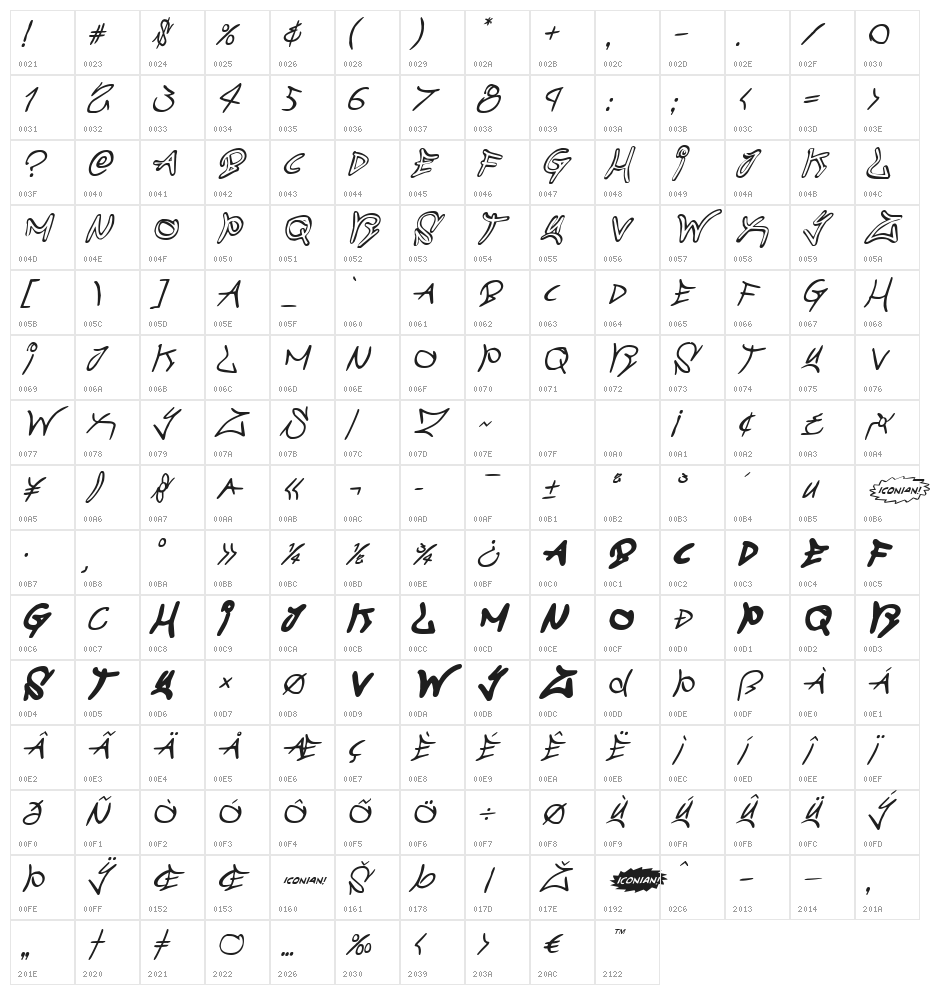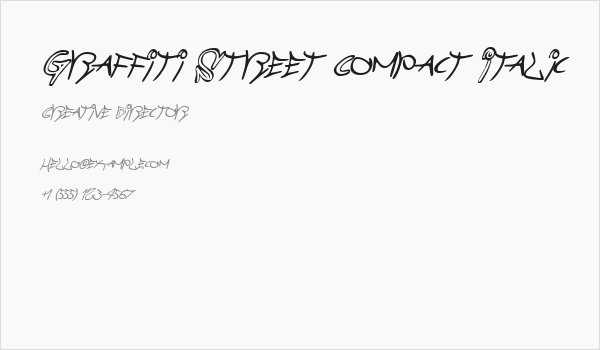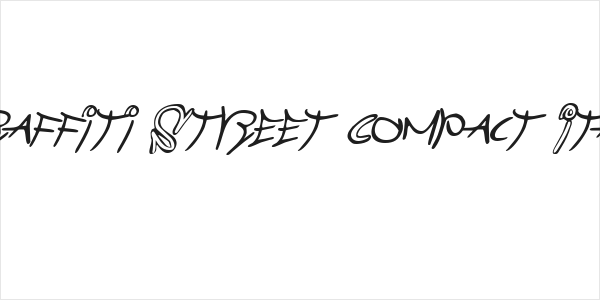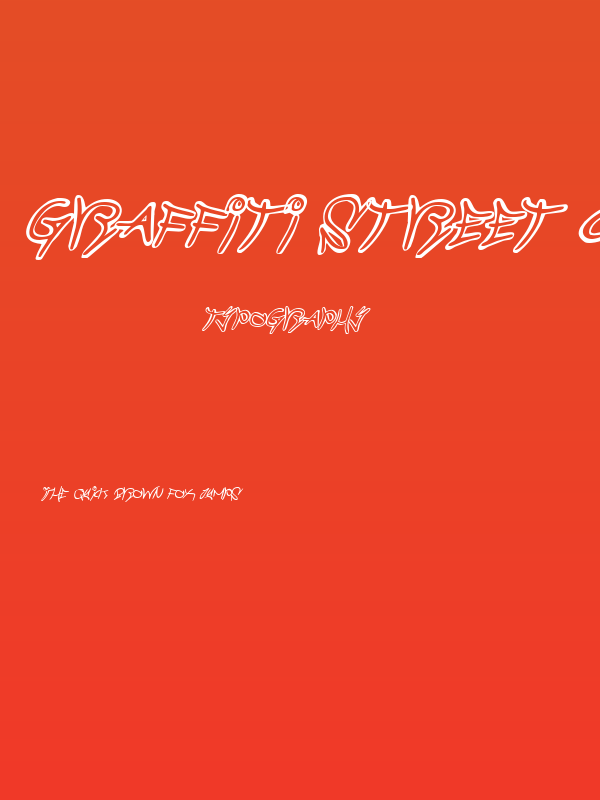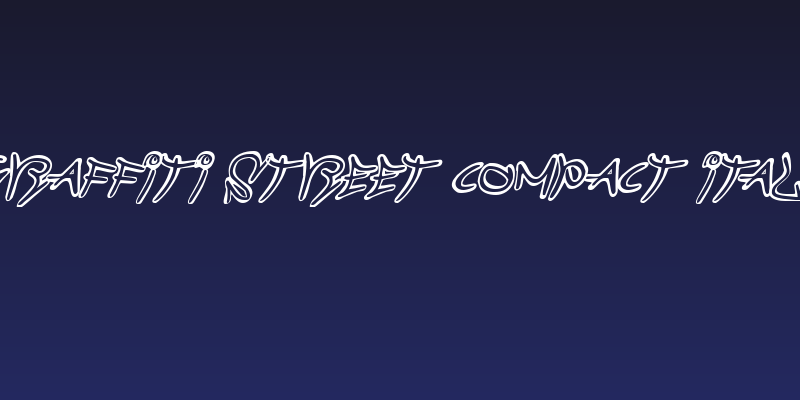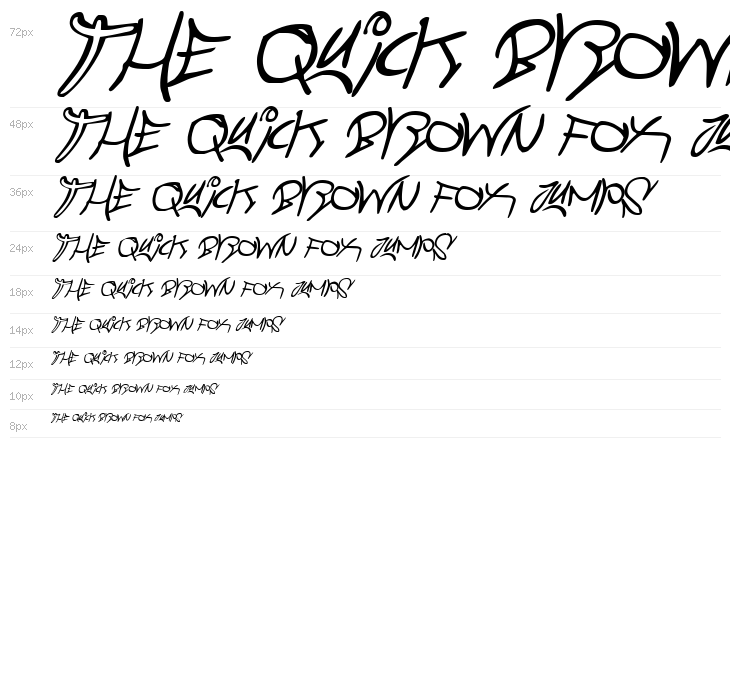
Graffiti Street Compact Italic Font
Graffiti Street Compact Italic Description
This font embodies a dynamic and edgy graffiti style, characterized by its bold, angular strokes and compact form. The letters are slanted, giving an italicized appearance that enhances its street art vibe. Each character is uniquely crafted with sharp edges and fluid curves, creating a sense of movement and energy. The uppercase and lowercase letters maintain a consistent style, while the numbers and special characters integrate seamlessly with the overall design. This font's aesthetic is perfect for projects that require a bold, urban feel.
| Overall Style | Modern, Urban, Edgy |
| Proposed Projects | Ideal for street art designs, urban-themed posters, music album covers, and edgy branding projects. |